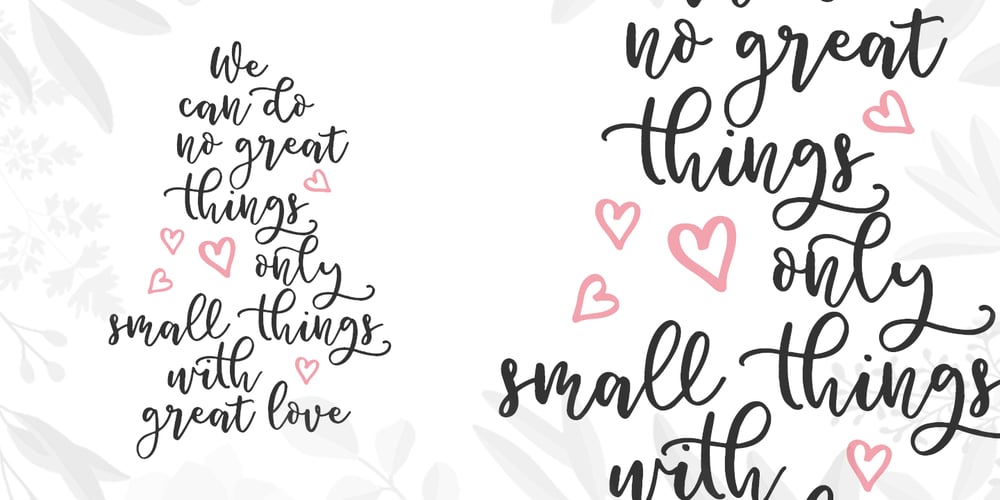
Orchard Trees
Orchard Trees font
Orchard Trees Font Family was designed by Dmitrii Chirkov and published by Supfonts. Orchard Trees contains 1 styles and family package options. Hello dears! I fulfilled my old dream and drew (wrote it to whom as you like 🙂 a font in the Modern Calligraphy style. Also I added Ligatures and Swashes, have fun 🙂 Orchard Trees will look beautiful on holiday invitations, wedding invites and stationery, logos, and more. Test it out below to see how it could look for your next project! Includes: Uppercase and lowercase Numbers and punctuation Foreign language support Check out my blog: https://www.instagram.com/zloillev pinterest.com/dmitriychirkov7